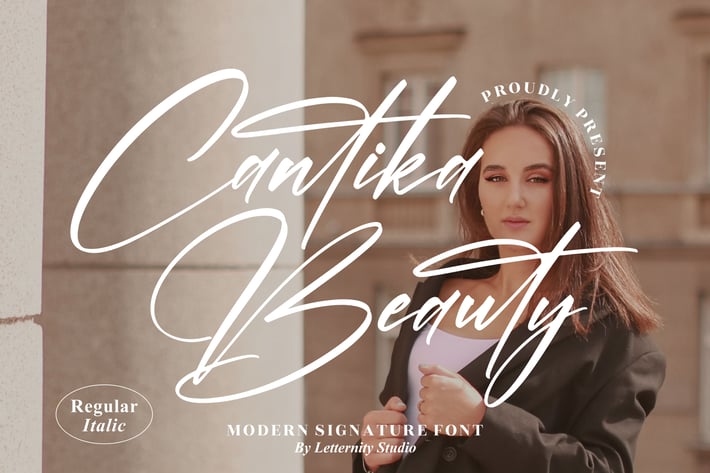
Cantika Modern Siganture Font
Cantika Beauty is a modern signature font that embodies elegance, confidence, and soft handwritten charm. Designed with long flowing strokes and luxurious curves, this typeface delivers a refined handwritten aesthetic perfect for premium visual storytelling. Its smooth letterforms and stylish movement make it an exceptional choice for high-end branding and sophisticated creative projects.
Modern handwritten signature style
Elegant long strokes with refined curves
Smooth, expressive letterforms for a premium look
Includes Regular & Italic styles
Graceful, modern, and effortlessly refined — Cantika Beauty brings signature elegance to every design.